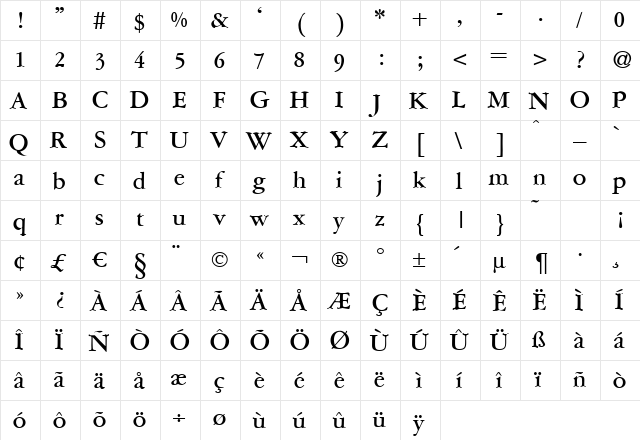
A771-Roman Bold
Design Context for A771-Roman Typeface
A771-Roman takes a measured approach to typography — its balanced proportions and neutral character make it a reliable workhorse for both digital and print work. Its bold stroke weight gives it real presence on the page.